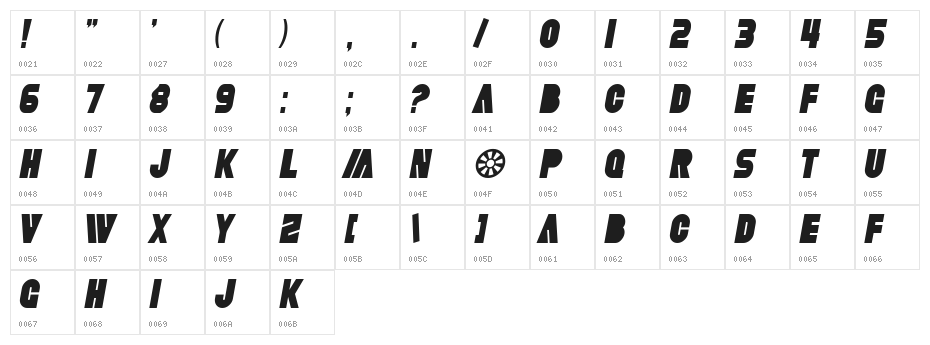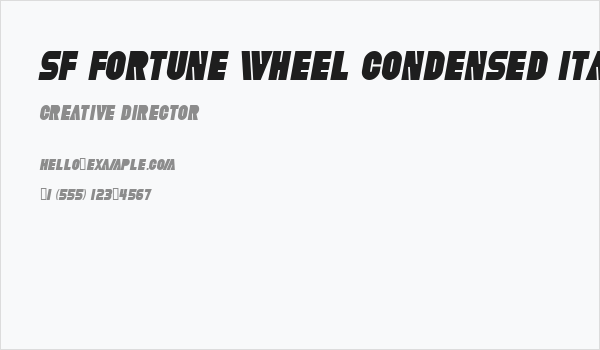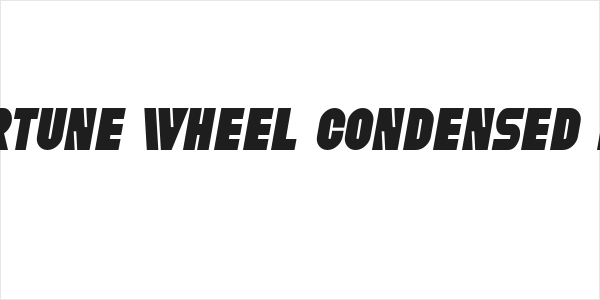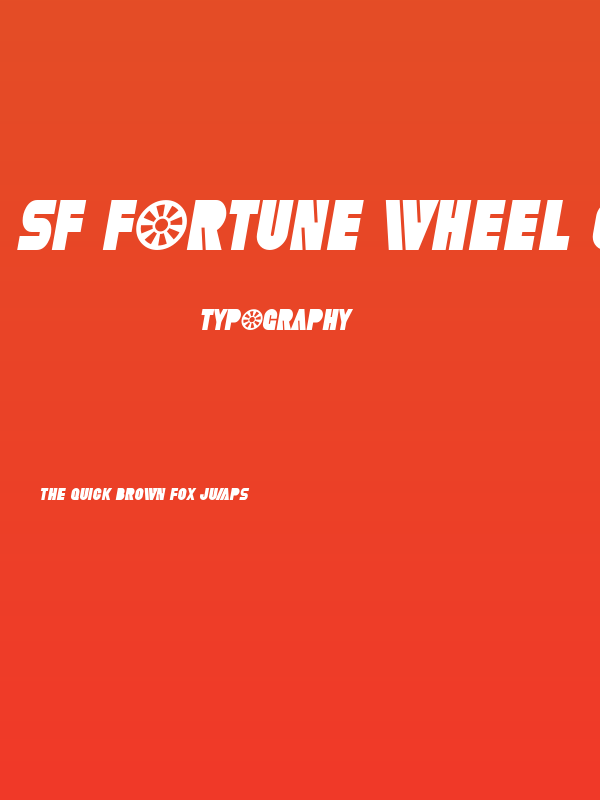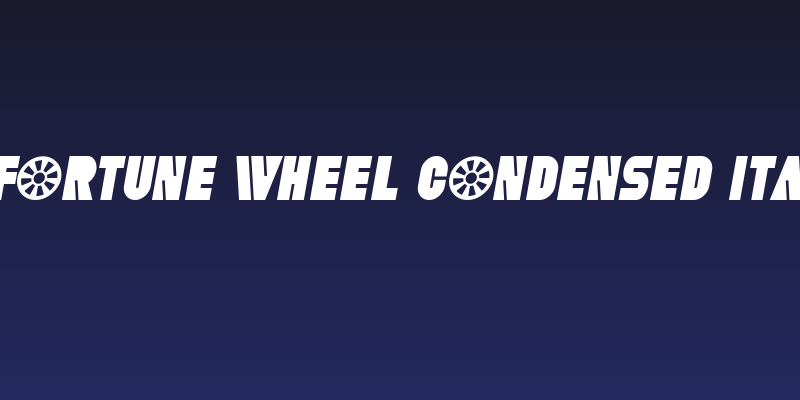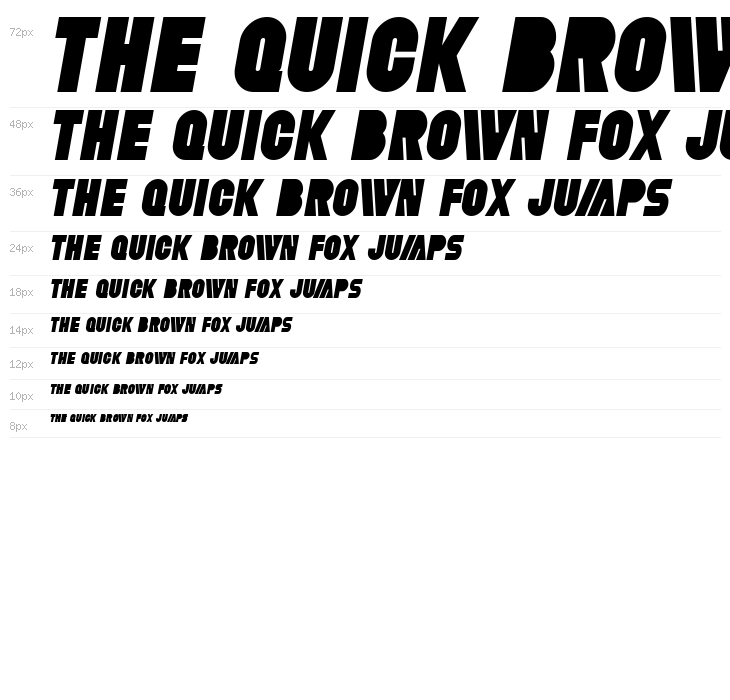
SF Fortune Wheel Condensed Italic Font
SF Fortune Wheel Condensed Italic Description
This font features a bold and dynamic style with a condensed and italicized form, giving it a sense of movement and energy. The characters are designed with sharp angles and a strong geometric influence, making them stand out with a modern and futuristic appeal. The uppercase letters are particularly striking, with a unique design that incorporates a sense of speed and urgency. The numbers and special characters maintain this bold and angular style, ensuring consistency across the font. The font's condensed nature allows for efficient use of space, making it suitable for impactful headlines and attention-grabbing designs.
| Proposed Projects | Ideal for sports branding, dynamic posters, futuristic designs, and impactful headlines. |